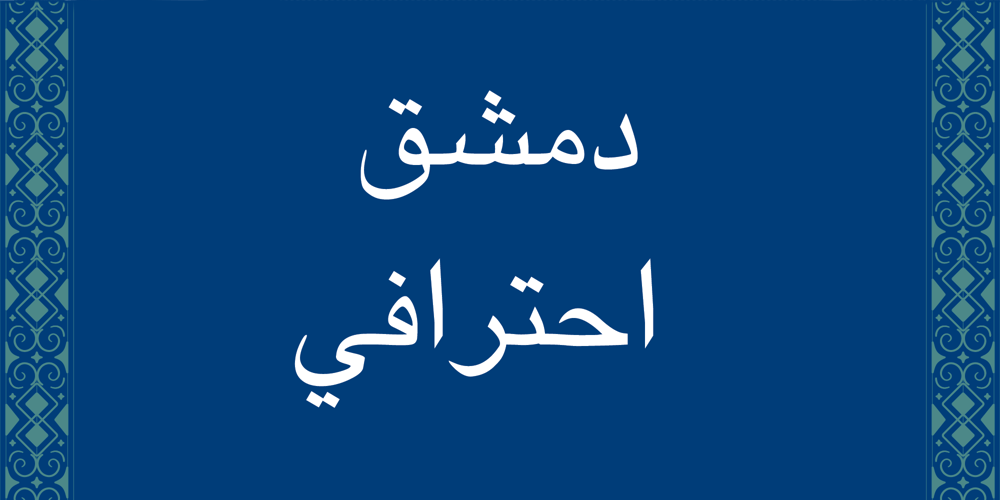
Damascus Pro
Damascus Pro font
Damascus Pro Font Family was designed by Diwan Font Team and published by Diwan Software. Damascus Pro contains 5 styles and family package options. Damascus Pro is a contemporary Arabic typeface designed for clarity, simplicity, and versatility in body text. Modeled after the clean and modern aesthetics of Helvetica, this font brings the same level of readability and elegance to Arabic script. The Pro version was extended to include full Unicode Arabic, professional accent placement, and improved glyph outlines and comes in 5 well-balanced weights.